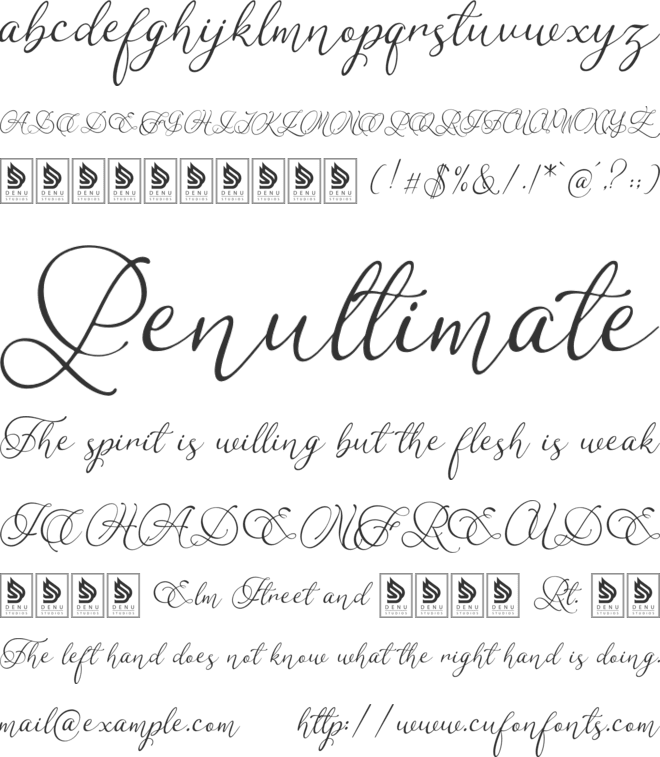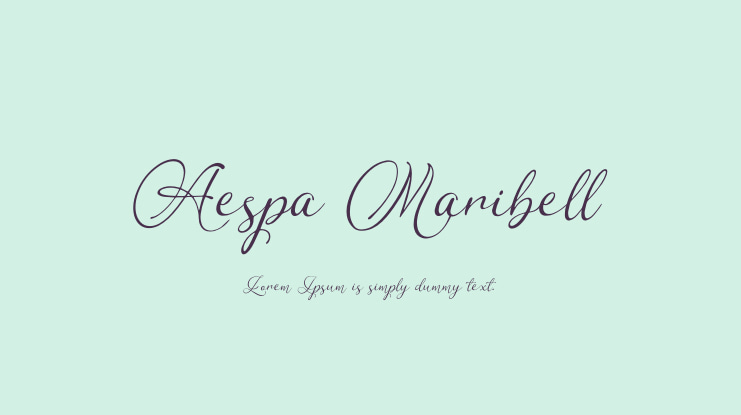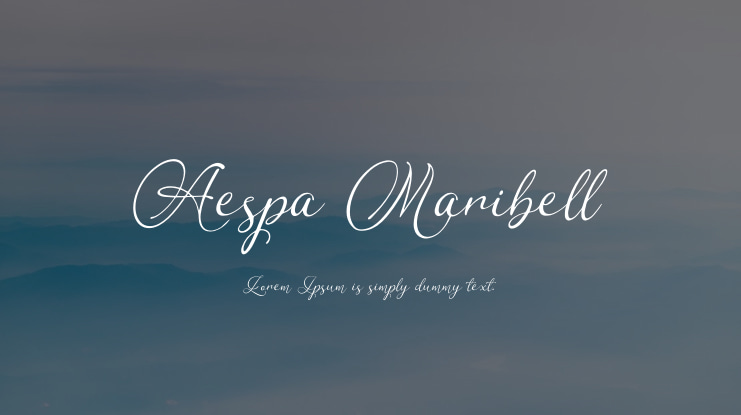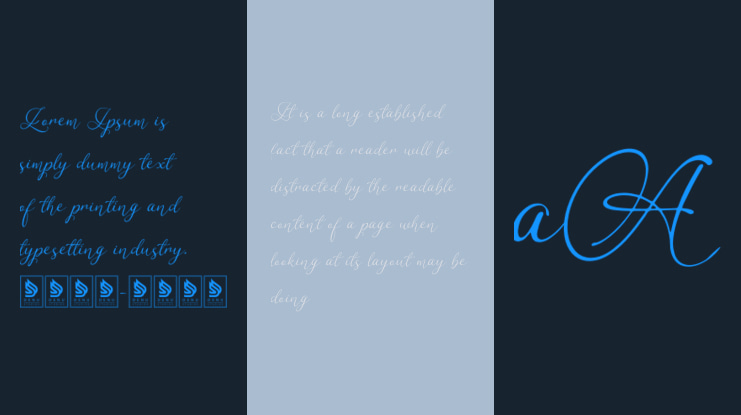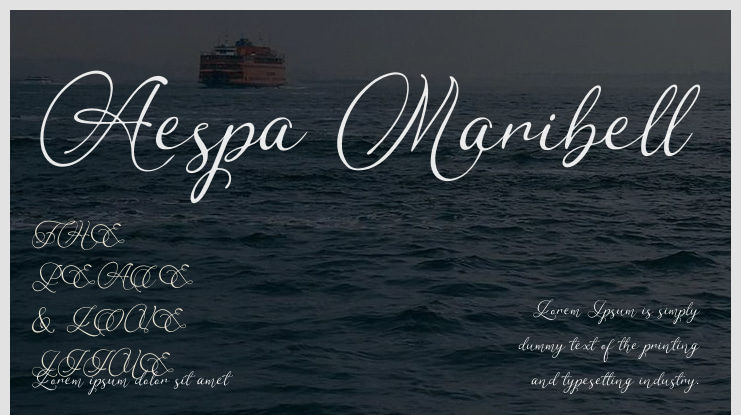
Aespa Maribell Font
Aespa Maribell | Beauty Calligraphy Script is perfect for various projects such as logos, branding, homeware designs, product packaging, mugs, quotes, posters, shopping bags, t-shirts, book covers, name cards, invitation cards, greeting cards, labels, photography, watermarks, special events, and all your other beautiful projects that need a touch of Beauty Calligraphy Script.